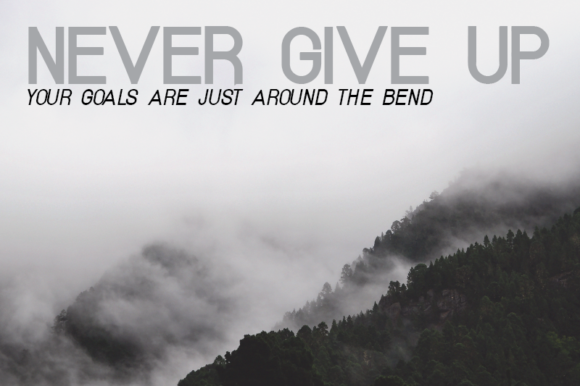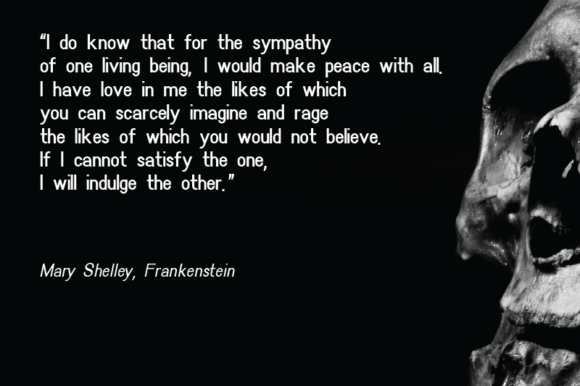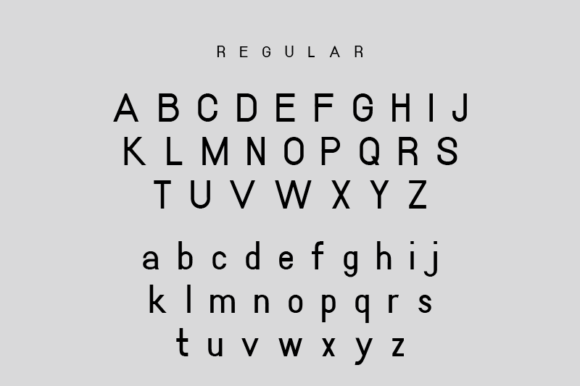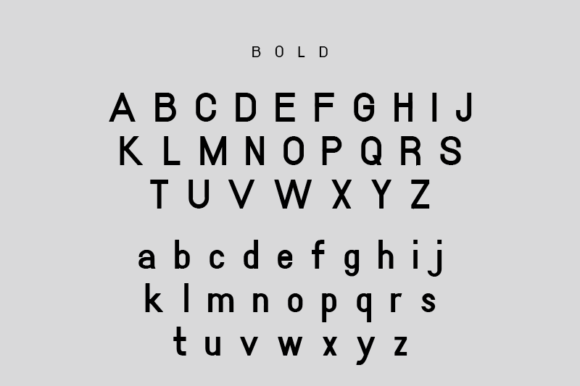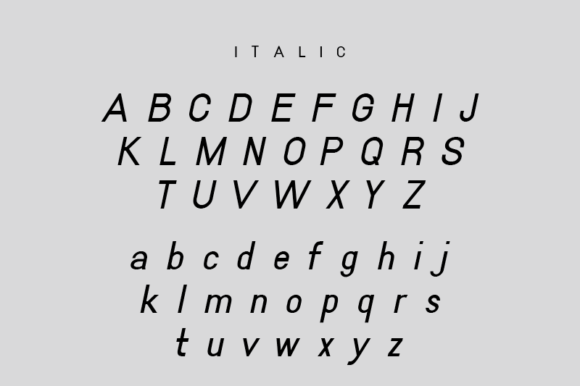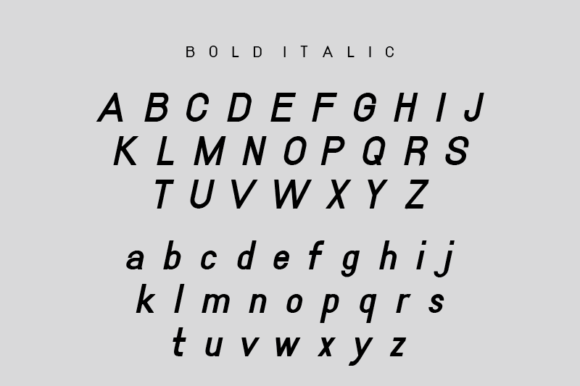
Introducing Hammer Font: The Bold and Simple Sans Serif for Creative Projects
Hammer is a bold and simple sans serif font that can easily be matched to an incredibly large set of projects. Its versatility and striking appearance make it an excellent addition to your creative ideas, allowing your designs to stand out with ease. In this article, we’ll dive into the world of Hammer Font, exploring its features, uses, and benefits for designers and crafters.
What is Hammer Font?
Hammer Font is a sans serif font, characterized by its clean and minimalist design. The font’s simplicity makes it highly legible, even at smaller sizes, ensuring that your message is conveyed effectively. The bold nature of Hammer Font adds a level of sophistication and professionalism to your designs, making it perfect for a wide range of applications.
Key Features of Hammer Font
- Bold and Simple Design: Hammer Font boasts a bold and simple design that grabs attention without overwhelming the viewer.
- Versatility: Its sans serif nature makes it suitable for various design projects, from digital media to print materials.
- High Legibility: The font’s clean lines and clear letterforms ensure that your text remains easy to read, even at smaller sizes.
- Professional Look: The boldness of Hammer Font adds a professional touch to your designs, making them more engaging and effective.
Uses of Hammer Font
The versatility of Hammer Font makes it an excellent choice for a multitude of design projects. Here are some of the top uses for this font:
- Branding and Logos: Create a lasting impression with bold and memorable logos that stand out.
- Headings and Titles: Use Hammer Font to create attention-grabbing headings and titles for your blog posts, articles, and presentations.
- Advertising and Marketing Materials: Make your ads and marketing materials more engaging and effective with the bold and simple design of Hammer Font.
- Signage and Posters: The high legibility and professional look of Hammer Font make it an excellent choice for signage and posters.
- Digital Media: Use Hammer Font in your digital projects, such as social media graphics, website headers, and email newsletters.
Hammer Font offers several benefits for designers and crafters, including:
- Ease of Use: The simplicity of Hammer Font makes it easy to use and pair with other fonts.
- Time-Saving: With Hammer Font, you can create professional-looking designs quickly and efficiently.
- Consistency: The font’s bold and simple design ensures consistency across your designs, creating a cohesive brand image.
- Creativity Boost: Hammer Font’s versatility and striking appearance can inspire creativity and help you think outside the box.
Tips for Using Hammer Font Effectively
To get the most out of Hammer Font, consider the following tips:
- Pair with Complementary Fonts: Combine Hammer Font with complementary fonts to create visual interest and hierarchy.
- Experiment with Sizes and Colors: Play with different sizes and colors to add emphasis and create a unique look.
- Use for Headings and Titles: Reserve Hammer Font for headings and titles to create a clear visual hierarchy.
- Consider Line Spacing: Ensure adequate line spacing to maintain readability and prevent the text from becoming too dense.
Hammer Font is a bold and simple sans serif font that can elevate your designs and make them stand out. Its versatility, high legibility, and professional look make it an excellent choice for a wide range of projects. By incorporating Hammer Font into your creative workflow, you can create engaging, effective, and professional-looking designs that capture your audience’s attention.